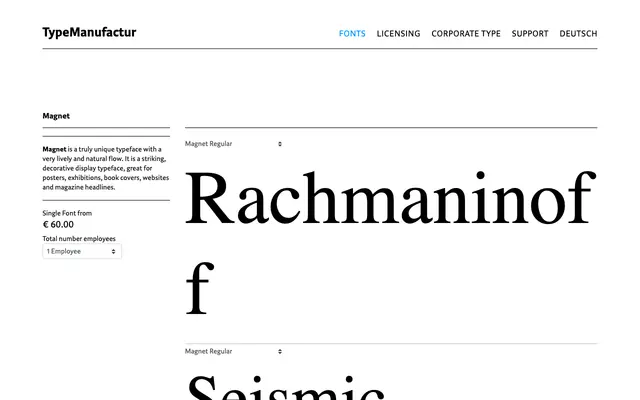
A display serif from Typemanufactur suited to headline and poster work with an expressive, confident character.
Shown in a single Regular weight, Magnet is presented through bold editorial settings ranging from lyrical literary text to stark all-caps headlines. Its specimen pairings suggest a typeface built for large-scale display use where personality matters more than neutrality. The limited weight offering keeps the focus on the cut itself rather than a broad family system.
The specimen treatments and expressive headline usage suggest a display-oriented serif designed for large-scale editorial and poster work rather than text setting.